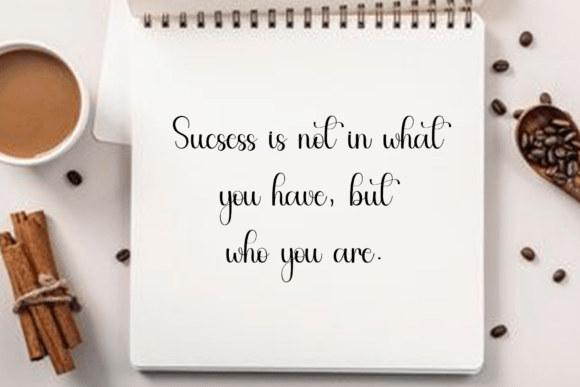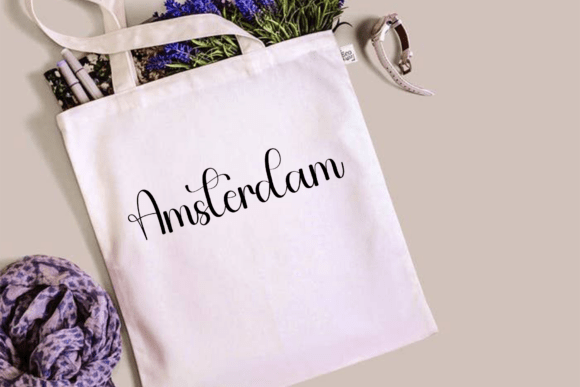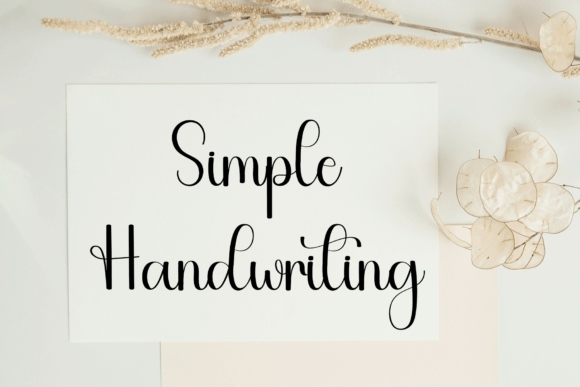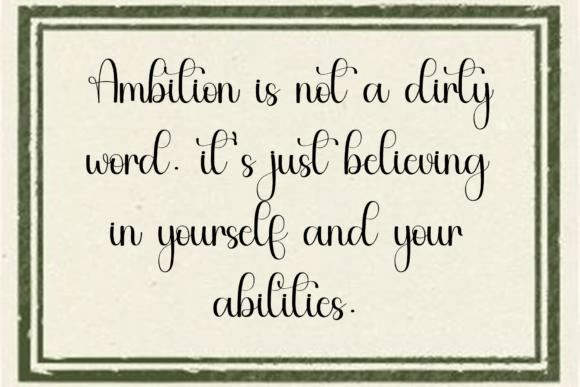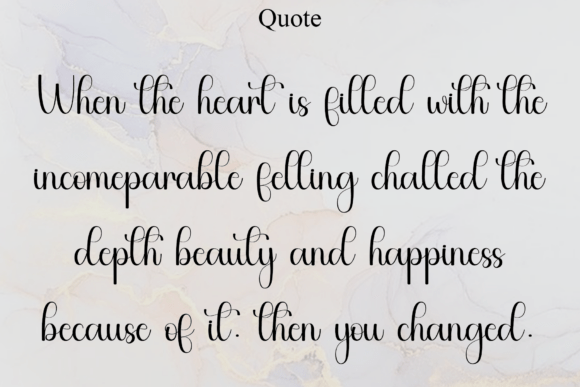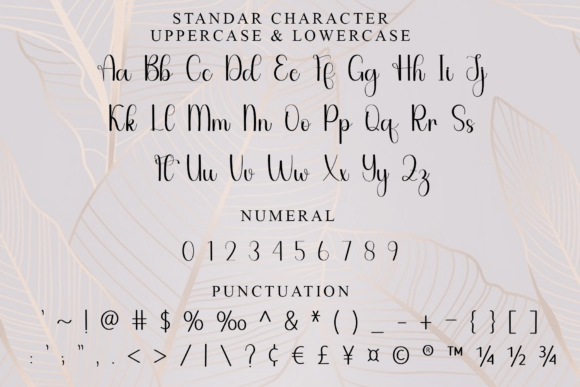
Introducing Happy Saturday Font: The Ultimate Holiday Typeface
Are you looking for a font that embodies the spirit of the holiday season? Do you want to add a touch of magic to your designs and make them stand out? Look no further than Happy Saturday Font, a festive and merry typeface that is perfect for greeting cards, gift tags, and holiday-themed projects.
A Festive and Whimsical Typeface
Happy Saturday Font is a decorative typeface that captures the essence of the holiday season. With its whimsical flair and enchanting elements, it adds a touch of nostalgia and cheerfulness to your words. This font is perfect for designers and crafters who want to create holiday-themed projects that are both fun and elegant.
Happy Saturday Font is ideal for a variety of holiday projects, including:
- Greeting cards: Create beautiful and festive greeting cards that will make your loved ones feel special.
- Gift tags: Add a personal touch to your gifts with custom gift tags that feature Happy Saturday Font.
- Holiday-themed projects: Use Happy Saturday Font to create festive and fun projects, such as holiday posters, flyers, and brochures.
Happy Saturday Font is PUA encoded, which means that you can access all of the amazing glyphs and ligatures with ease. This font features a range of decorative elements, including:
- Swashes: Add a touch of elegance to your designs with beautiful swashes.
- Ligatures: Create beautiful and unique word combinations with ligatures.
- Glyphs: Access a range of decorative glyphs, including ornaments and flourishes.
Why Choose Happy Saturday Font?
There are many reasons why Happy Saturday Font is the perfect choice for your holiday projects:
- Unique and festive design: Happy Saturday Font features a unique and festive design that will make your projects stand out.
- Versatile: Happy Saturday Font can be used for a range of holiday projects, from greeting cards to holiday posters.